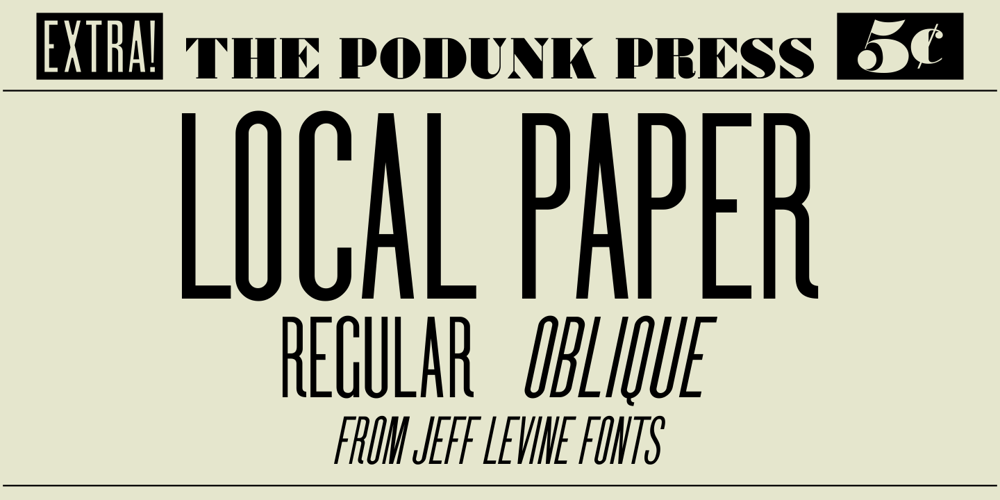
Local Paper JNL Font Family was designed by Jeff Levine and published by Jeff Levine. Local Paper JNL contains 2 styles and family package options. The headline set in wood type from the Brooklyn Daily Eagle edition of March 26, 1911 inspired Local Paper JNL, which is available in both regular and oblique versions.This condensed sans serif grotesk was popular in the late 19th and early 20th centuries.